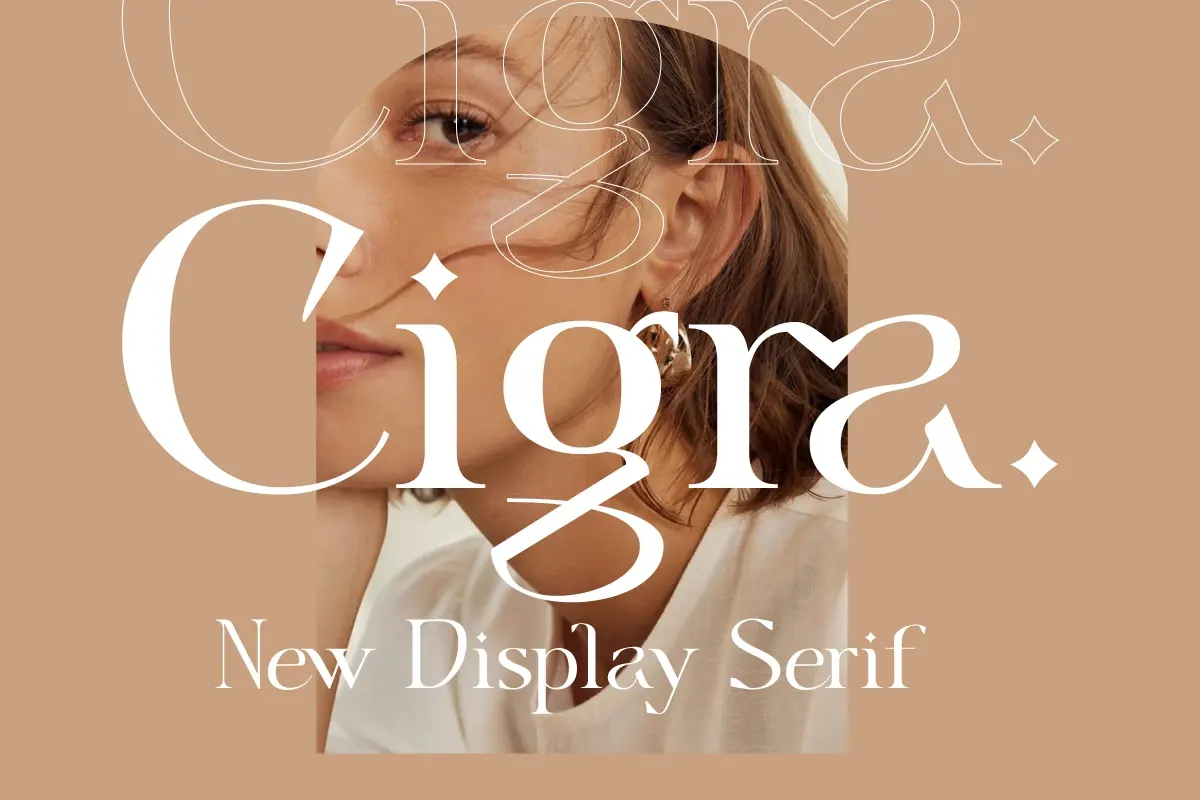
Cigra - Stylist Serif With Ligature Free Download
Cigra - Stylist Serif With Ligature Font Free Download is a sophisticated and stylish serif typeface designed to bring elegance and uniqueness to your designs. Featuring beautifully crafted letterforms and elegant ligatures, this font is perfect for high-end branding, editorial layouts, invitations, logos, and other creative projects that need a refined, professional touch.
The combination of classic serifs with modern design elements and ligatures adds a personalized and artistic flair, making Cigra perfect for both formal and creative applications. Whether you're designing a luxury brand, a wedding invitation, or a chic logo, this font will enhance the sophistication of your typography.